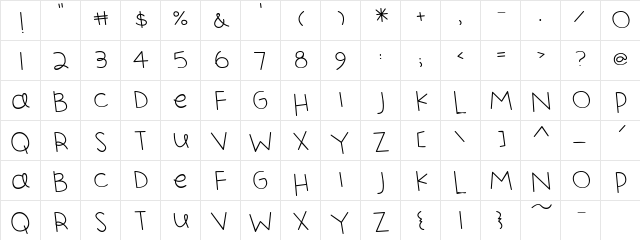
CK Aire Regular Font Preview
CK Aire Regular
Design Context for CK Aire Typeface
CK Aire takes a measured approach to typography — its balanced proportions and neutral character make it a reliable workhorse for both digital and print work.